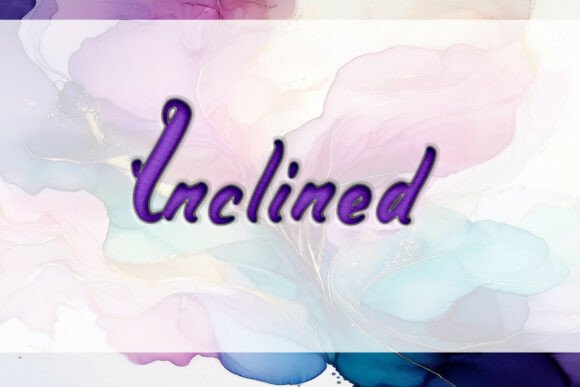
Introduction to Inclined Font
Introducing Inclined font – a unique and versatile typography solution.
Perfect for creating eye-catching t-shirt designs, vibrant stickers and engaging branding materials – its smooth lines and striking simplicity are effective in an array of applications It shines in magazine layouts and SVG files and adds a personal touch to greeting cards.
Key Features of Inclined Font
Why Choose Inclined Font?
Inclined Font offers exceptional quality and versatility, making it a valuable addition to your design toolkit. Whether you’re creating for personal projects or commercial use, Inclined Font delivers professional results.